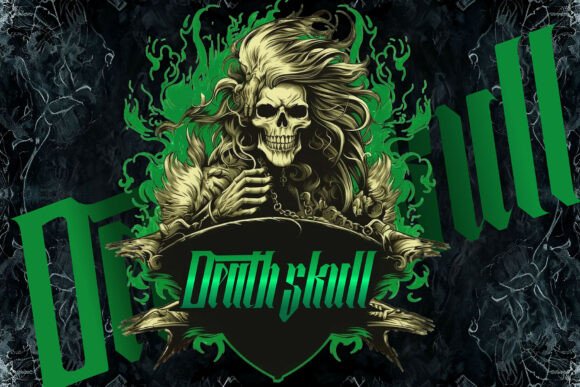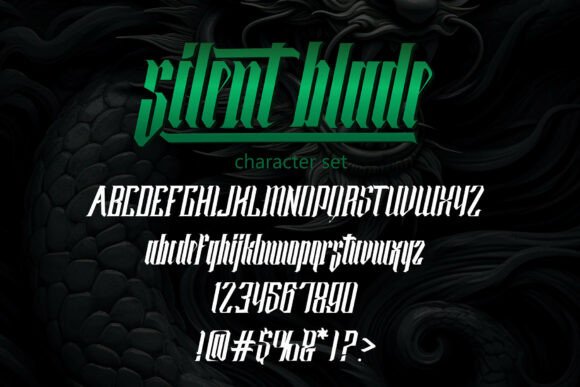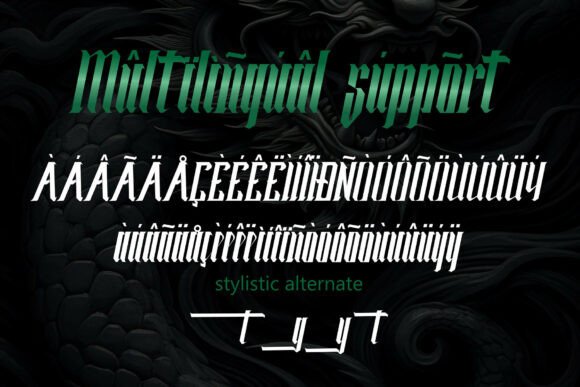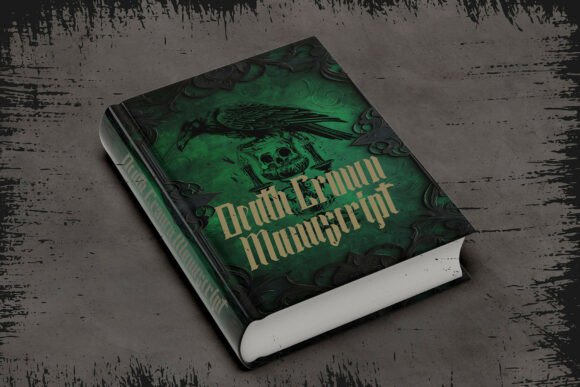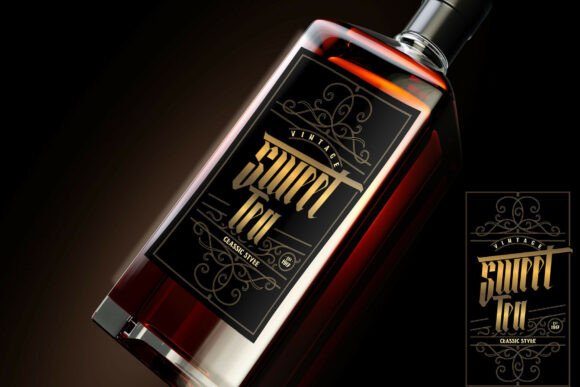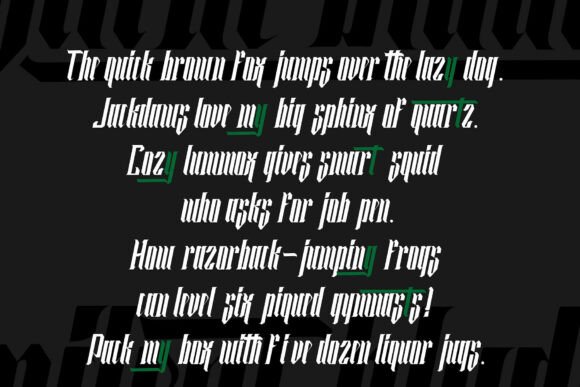
Introduction to Silent Blade Font
Introducing Silent Blade, a contemporary blackletter typeface steeped in medieval traditions yet carved with a bold, modern vibe.
It traces its roots back to classic gothic scripts, reconceptualized for the digital era, producing a prominent visual aura, befitting of branding, apparel, editorial designs, and poster art Each glyph in Silent Blade has been crafted meticulously, resulting in tall, angular, and assertive characters.
Key Features of Silent Blade Font
Why Choose Silent Blade Font?